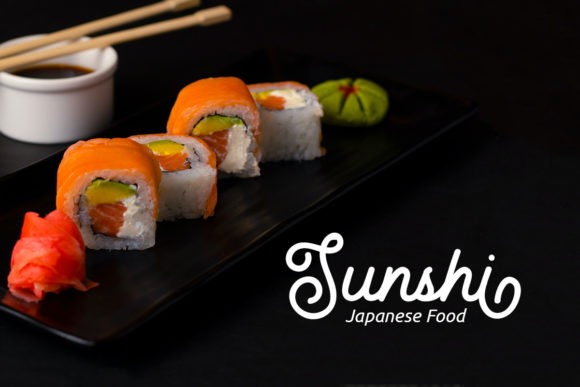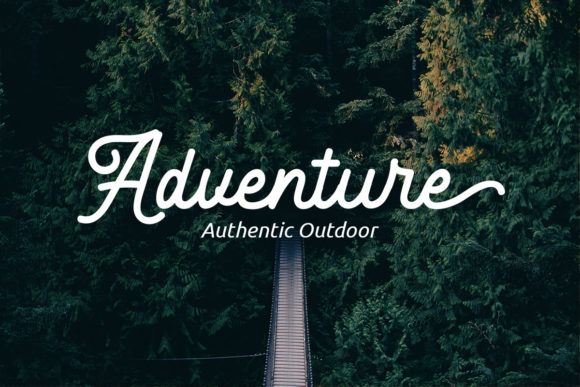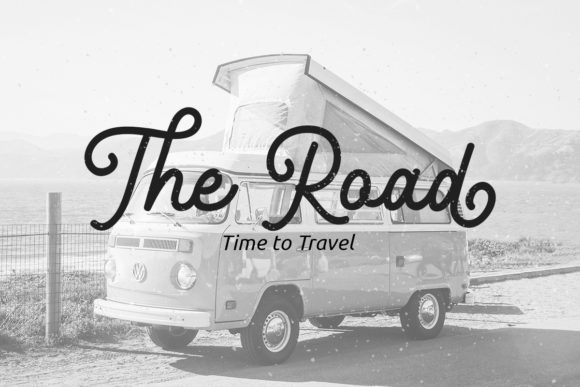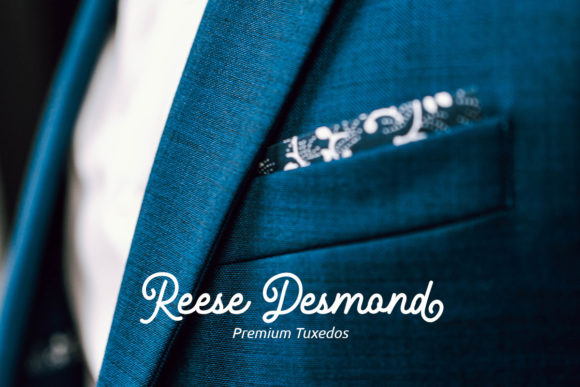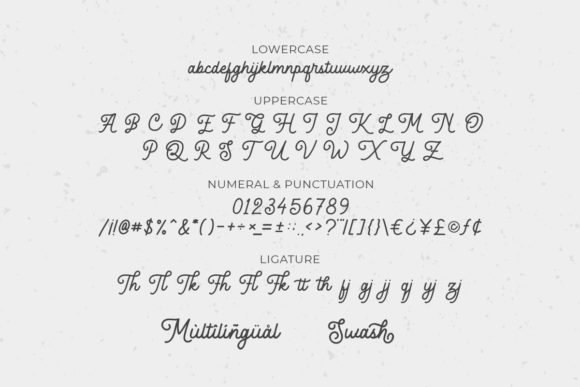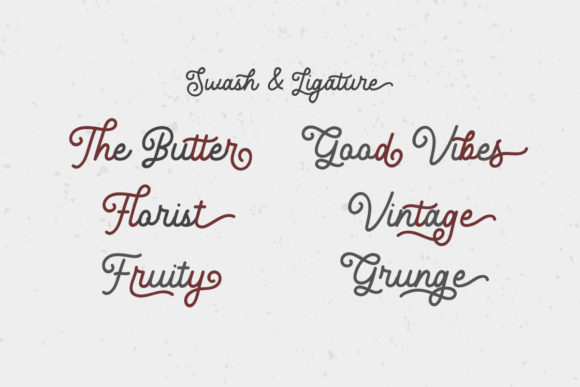
Introducing Flatty Monoline Font: Elevate Your Designs with Elegance and Versatility
Are you on the hunt for a font that can instantly elevate your designs, whether it’s for logo creation, branding, clothing, signage, or even wedding invitations? Look no further than the Flatty Monoline Font, a stunning monoline script font that is as versatile as it is beautiful. In this article, we’ll dive into the features, benefits, and uses of the Flatty Monoline Font, and explore how it can become an indispensable part of your design toolkit.
What is Flatty Monoline Font?
Flatty Monoline is a gorgeous monoline script font that boasts a unique and elegant style, perfect for designers and crafters looking to add a touch of sophistication to their projects. Unlike traditional fonts, the monoline characteristic of Flatty gives it a sleek, modern look that stands out in any design.
Key Features of Flatty Monoline Font
- Monoline Script Style: The font features a beautiful, consistent line width, giving it a clean and modern appearance.
- PUA Encoded: Being PUA (Private Use Area) encoded means that you can easily access all the glyphs and swashes, offering you a wide range of creative possibilities.
- Versatility: From logo design and branding to clothing design, signage, posters, and wedding invitations, Flatty Monoline is incredibly versatile.
- Easy to Use: Thanks to its PUA encoding, accessing the additional characters and swashes is straightforward, making it easy to incorporate into your designs.
Uses of Flatty Monoline Font
The possibilities are endless with Flatty Monoline. Here are some of the top uses for this fantastic font:
Logo Design and Branding
Creating a memorable brand identity starts with a great logo. Flatty Monoline’s unique style makes it perfect for crafting distinctive logos that stand out. Its elegance and modernity ensure that your brand leaves a lasting impression.
Clothing Design
For designers looking to create trendy and stylish apparel, Flatty Monoline can add a touch of class and sophistication. Whether it’s for t-shirts, hoodies, or any other clothing line, this font ensures your designs look professional and appealing.
Signage and Posters
Make your signage and posters pop with Flatty Monoline. Its clear, readable style ensures that your message is conveyed effectively, while its aesthetic appeal captures the attention of potential customers or audience members.
Wedding Invitations and Stationery
For those special occasions, Flatty Monoline offers a romantic and elegant touch to wedding invitations, thank you cards, and other stationery. Its sophisticated look makes any event feel more luxurious and memorable.
Why Choose Flatty Monoline Font?
With so many fonts available, why choose Flatty Monoline? Here are a few compelling reasons:
- Unique Style: In a sea of similar fonts, Flatty Monoline stands out with its distinctive monoline script style.
- Ease of Use: The PUA encoding makes it incredibly easy to use, even for designers who are new to working with script fonts.
- Support for Various Projects: Its versatility means you can use it across a wide range of projects, making it a valuable addition to your font library.
Flatty Monoline Font is more than just a font; it’s a design tool that can elevate your projects to new heights. Its elegant monoline script style, combined with its versatility and ease of use, makes it an excellent choice for designers and crafters alike. Whether you’re working on a logo, clothing design, signage, or wedding invitations, Flatty Monoline offers the perfect blend of style and functionality. Add it to your toolkit today and discover the difference it can make in your designs.
With Flatty Monoline Font, you’re not just choosing a font; you’re choosing a partner in your creative journey. Its unique style and flexibility ensure that your designs are always on point, making it an indispensable asset for anyone looking to make a mark in the world of design.